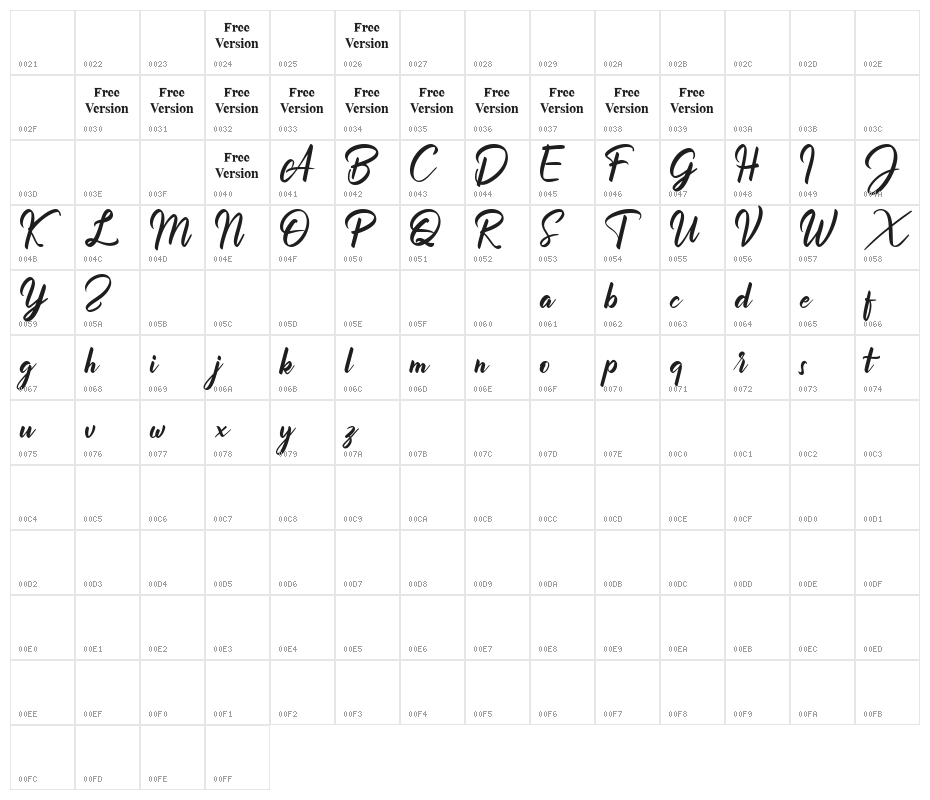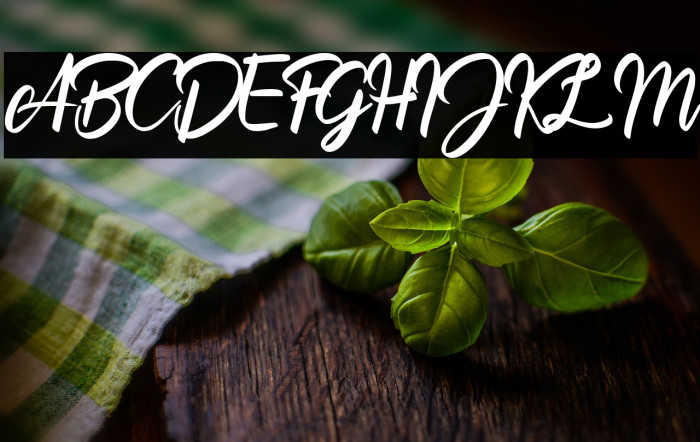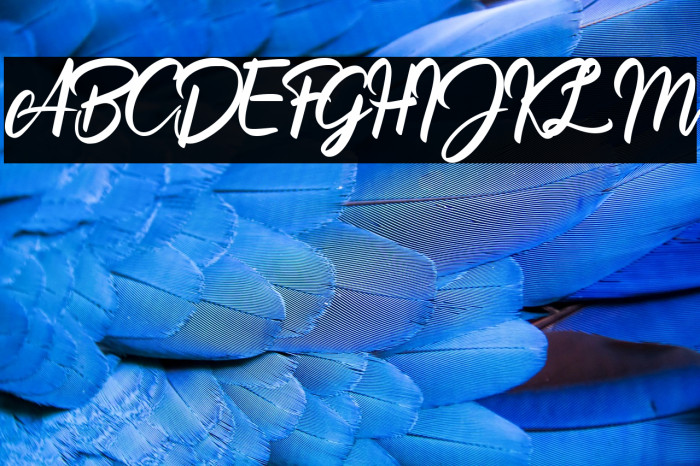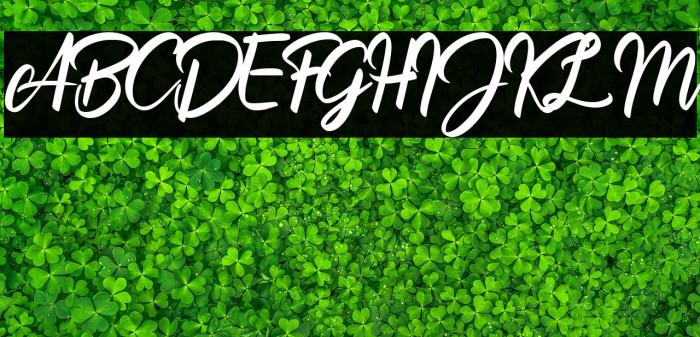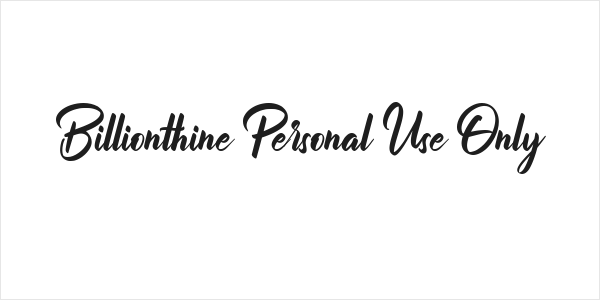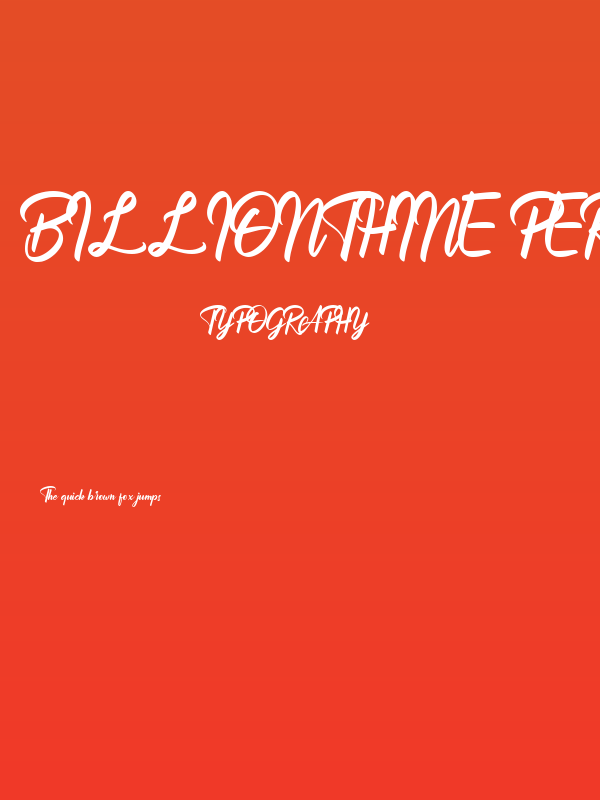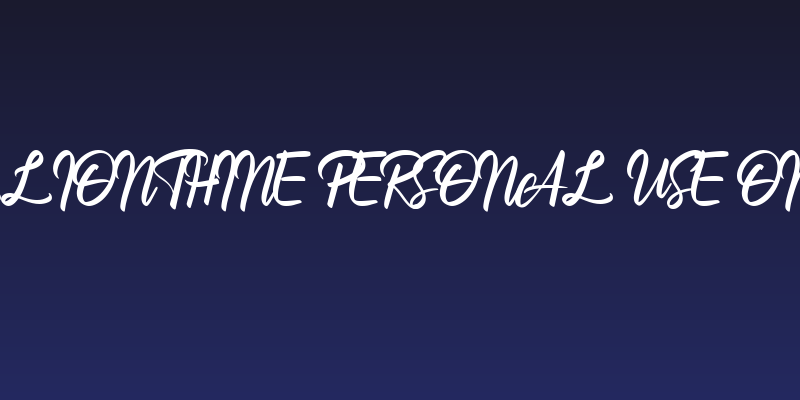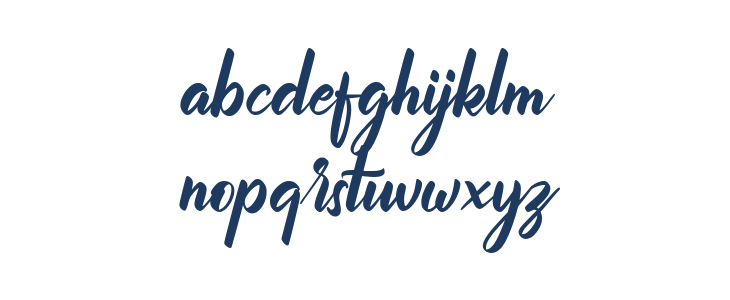
Billionthine Personal Use Only Font
Billionthine Personal Use Only Description
This font features a dynamic and flowing script style, characterized by its elegant and fluid letterforms. The uppercase letters exhibit a graceful, sweeping motion, while the lowercase letters maintain a consistent, cursive appearance. The strokes are bold and confident, with a slight slant that adds to the overall sense of movement and sophistication. The font's design is both modern and timeless, making it suitable for a variety of creative applications. Its distinctive style is perfect for projects that require a touch of elegance and personality.
| Proposed Projects | Ideal for wedding invitations, branding, logo design, and elegant stationery. |